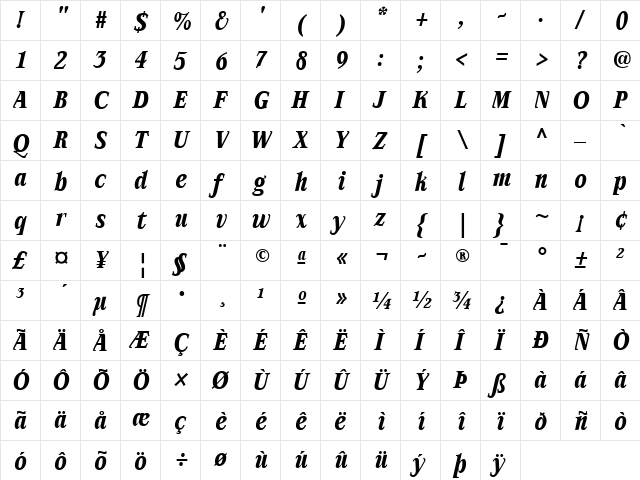
AIAlign Italic
Design Context for AIAlign Typeface
AIAlign offers clean, dependable letterforms without strong stylistic allegiance, making it a practical choice for designers who need flexibility. The dynamic lean of this cut emphasises speed and emphasis in any layout.
Pro Tip: Try AIAlign for annotation and caption copy alongside an upright companion — the contrast in angle creates a dynamic but ordered typographic system.